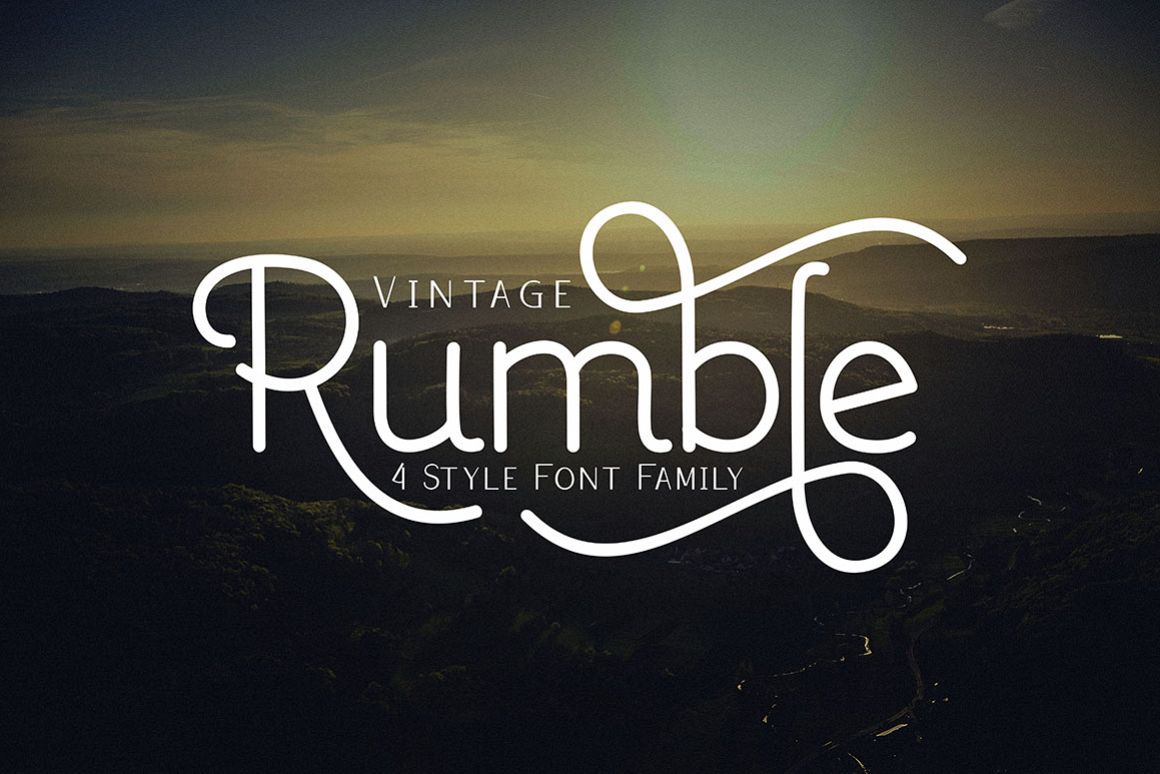
Rumble 4 Font Family
Rumble Slim Display.
Rumble Script.
Rumble Sans.
Rumble Deco.
Introducing
Rumble 4 Font Family
Rumble 4 Font Family a new fresh & modern script with a handmade calligraphy style, decorative characters and a dancing baseline! So beautiful on invitation like greeting cards, branding materials, business cards, quotes, posters, and more!!
Rumble 4 Font Family Features :